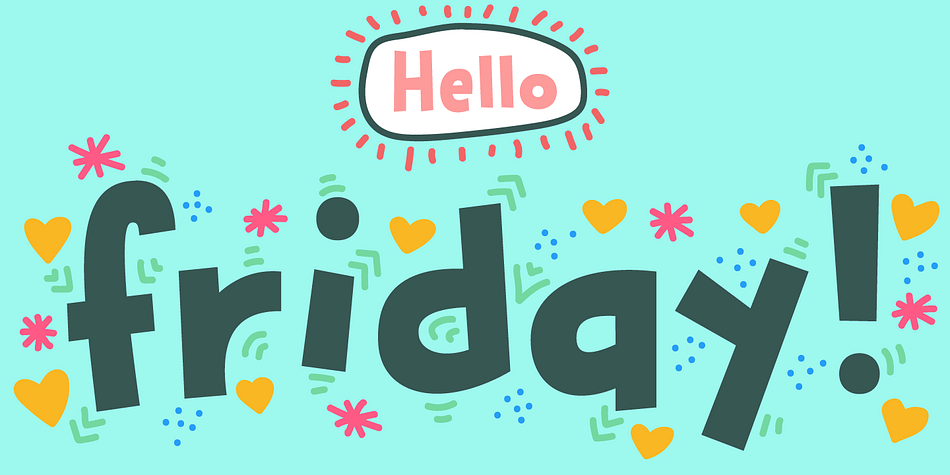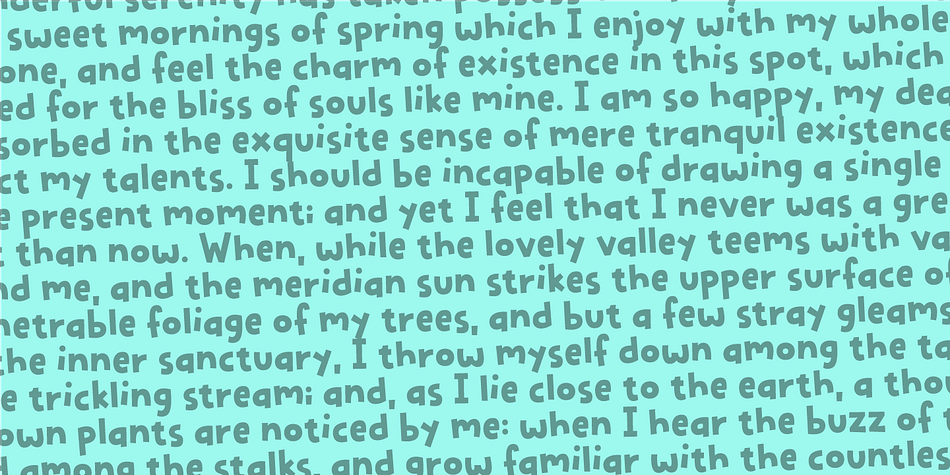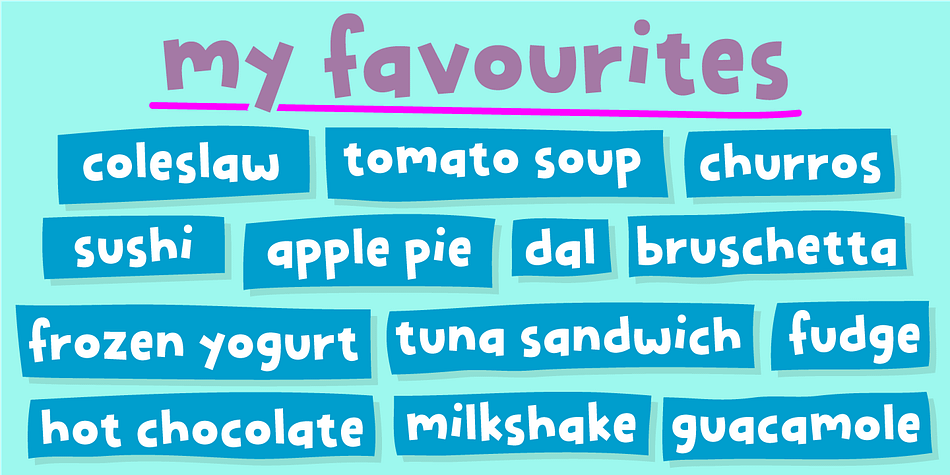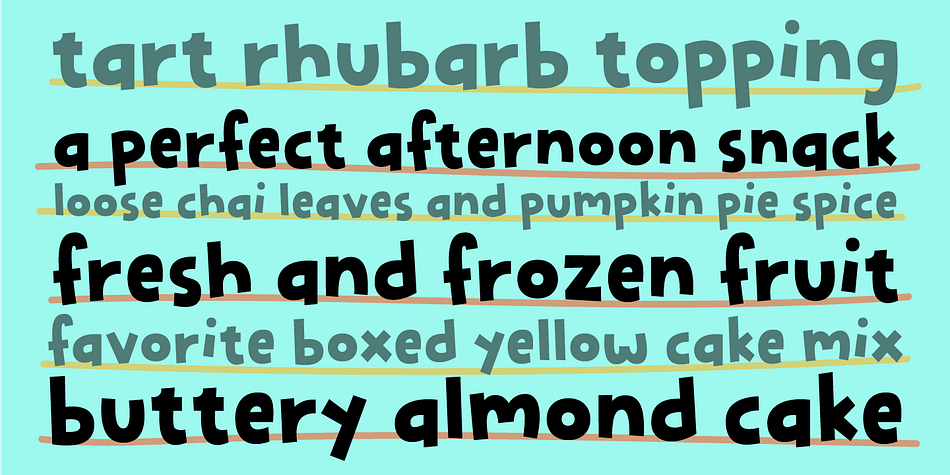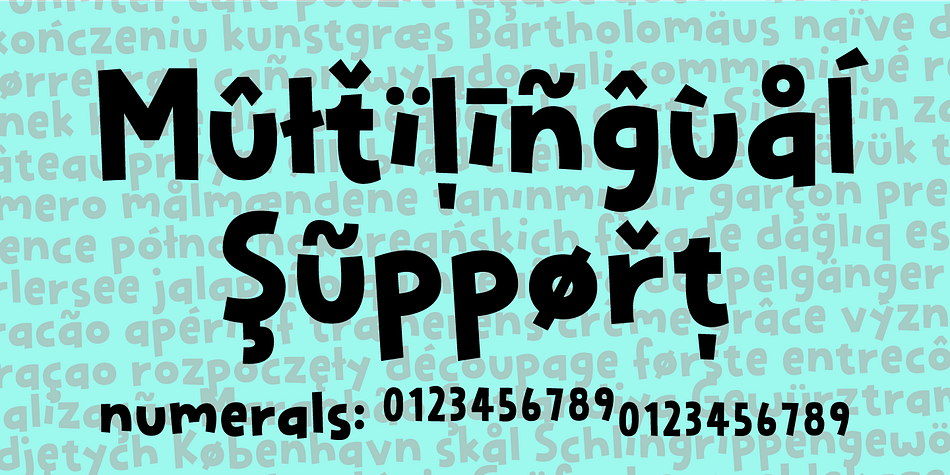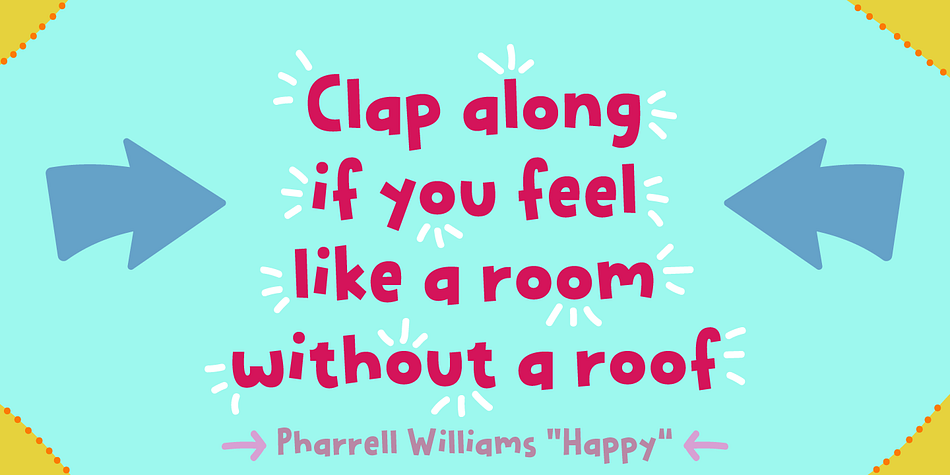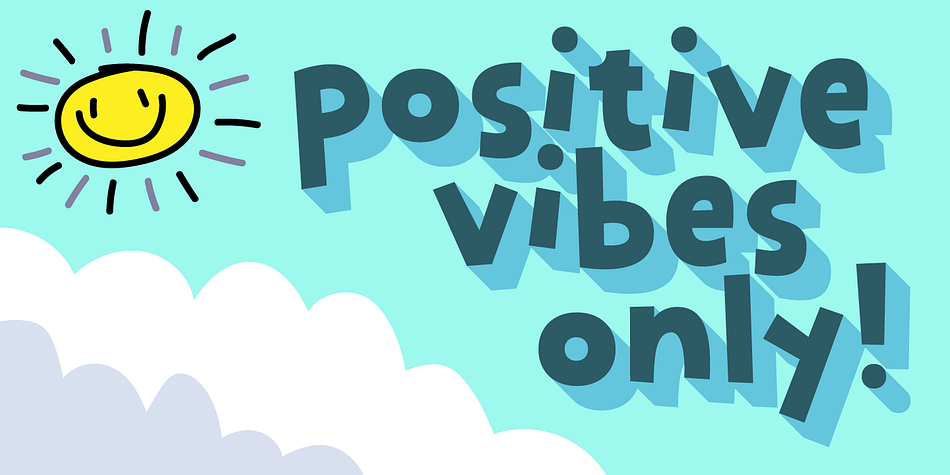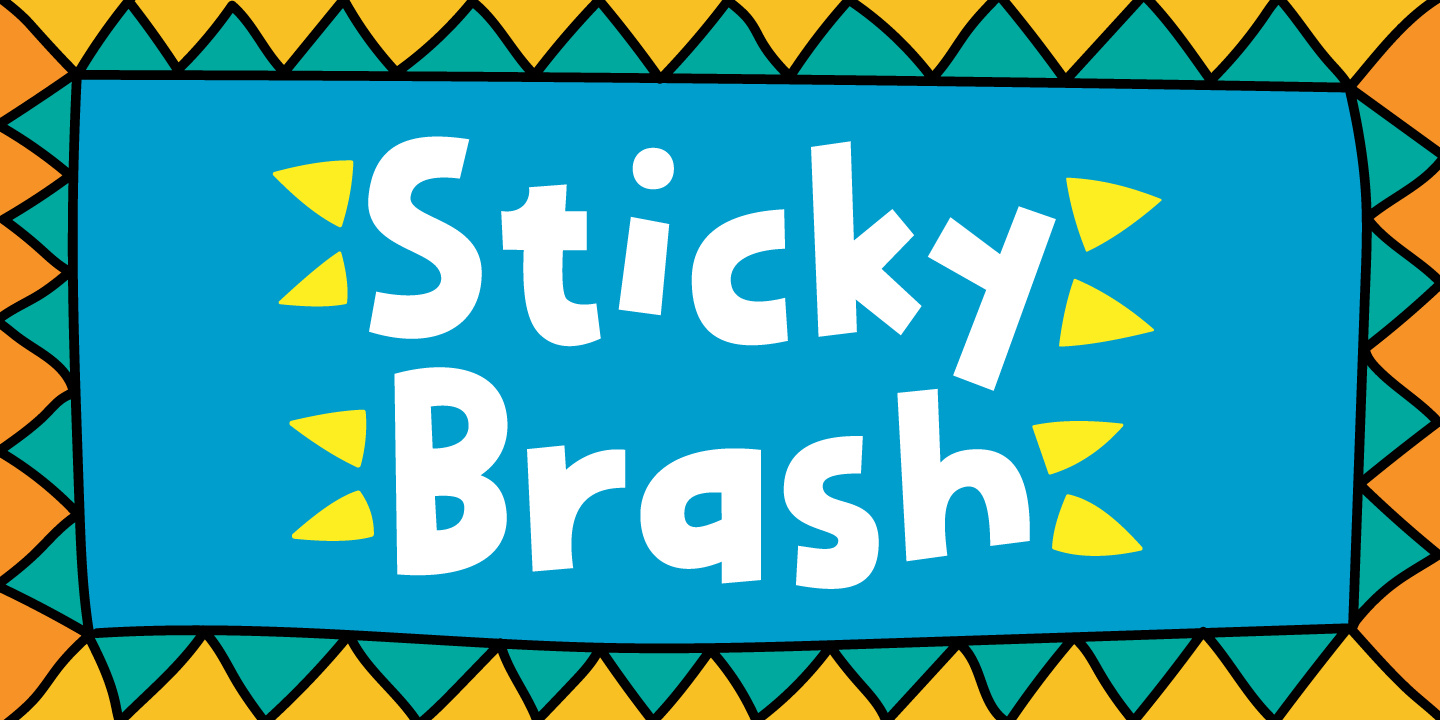
Sticky Brash
Designed by Jakob Fischer, Sticky Brash is a display sans and kids font family. This typeface has two styles and was published by Pizzadude.dk.
Sticky Brash is my laid back kids comic book font - suitable for anything that needs a fresh and quirky attitude, and super legible at the same time.
Originally handdrawn, and then manually traced digitally, in order to make those insane clean curves and lines!